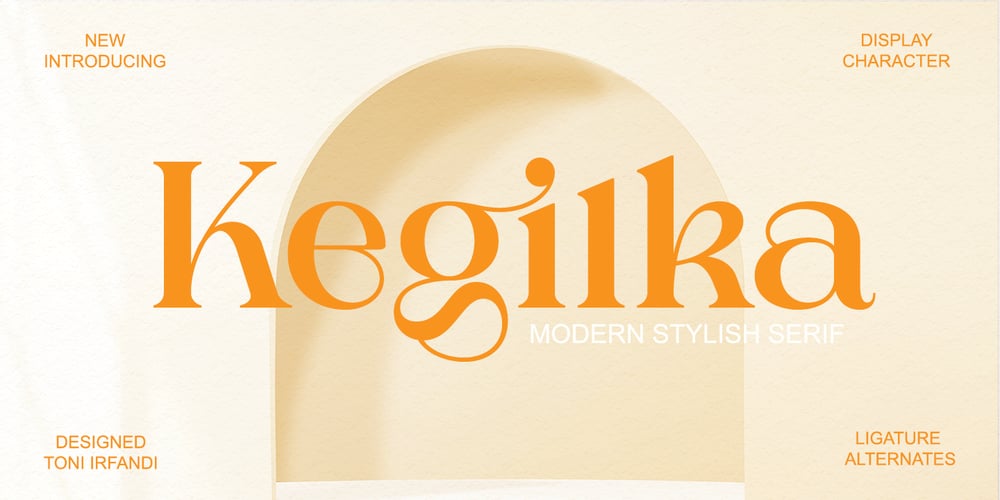
Kegilka Font Family was designed by Toni Irfandi and published by Tony Type Studio. Kegilka contains 1 styles and family package options. Seeing the characters in rhythm makes the Kegilka font very charismatic, the intersection of curves is so smooth and beautiful that it makes your project look neat and special.Kegilka comes with Alternative and Ligature fonts that add an elegant value to make your project look more charming. kegilka also provides international languages.Kegilka is suitable for use on product brands, covers for print and digital media.